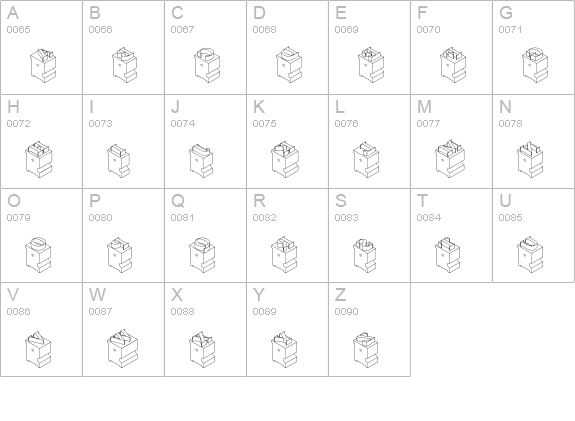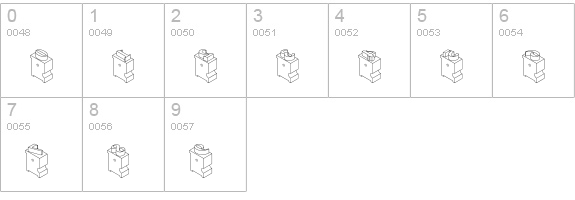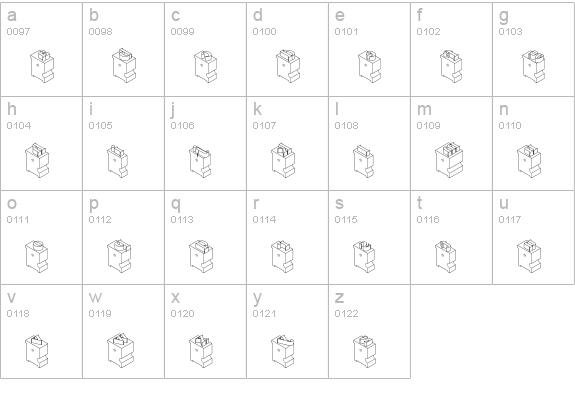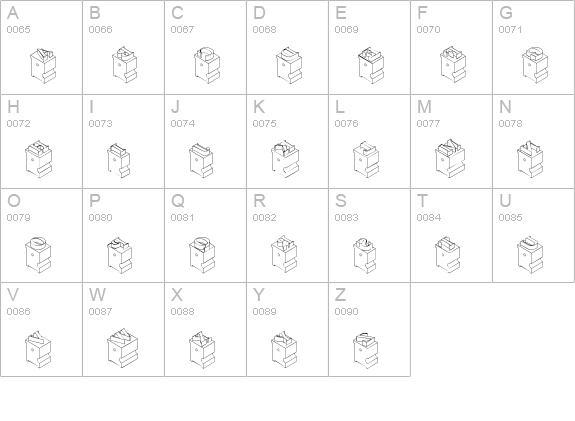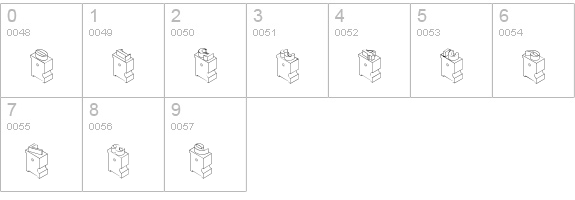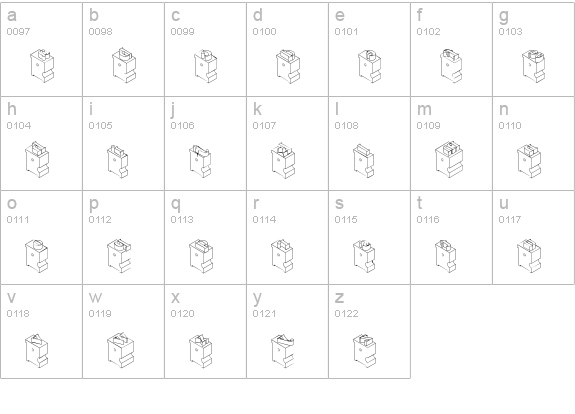
LeadTypeLeft Font Details
LeadTypeLeft is a sophisticated and elegant font that exudes a classic and timeless appeal. With its clean lines and sharp edges, this font is perfect for adding a touch of modernity to any design project. Whether you are working on branding materials, invitations, or editorial layouts, LeadTypeLeft is sure to make a bold statement. What makes LeadTypeLeft even more appealing is that it is available for free download at FontsMarket.com. This means that you can easily access this stunning font and incorporate it into your creative projects without any hassle. Don't miss out on the opportunity to elevate your designs with LeadTypeLeft - download it today and let your creativity shine!